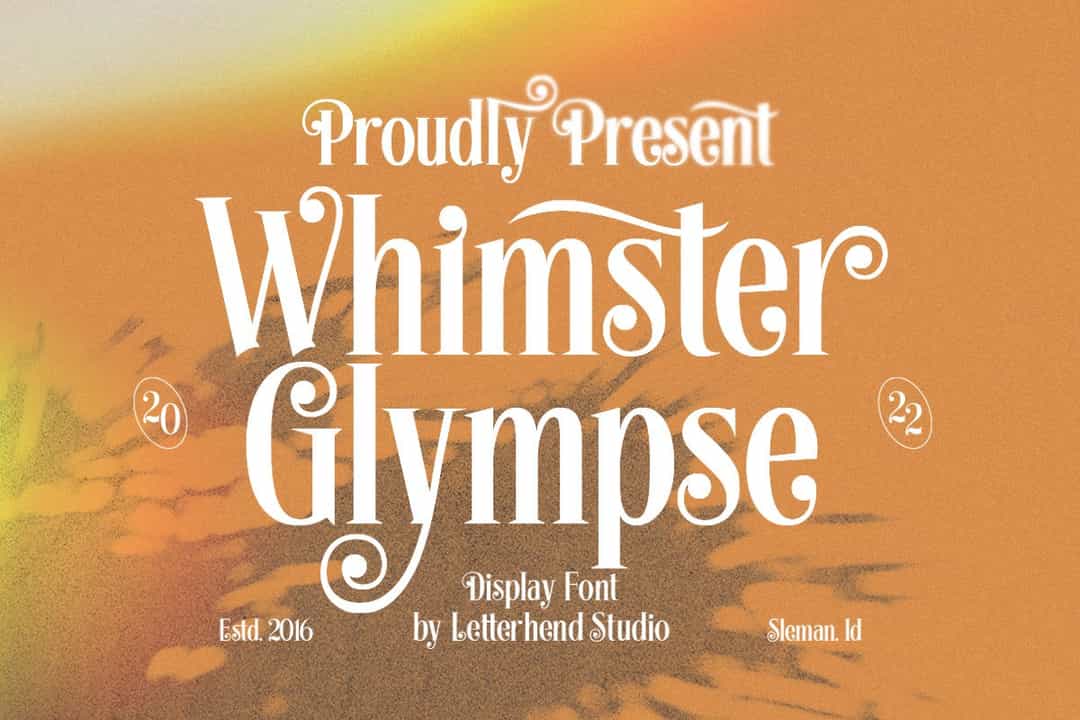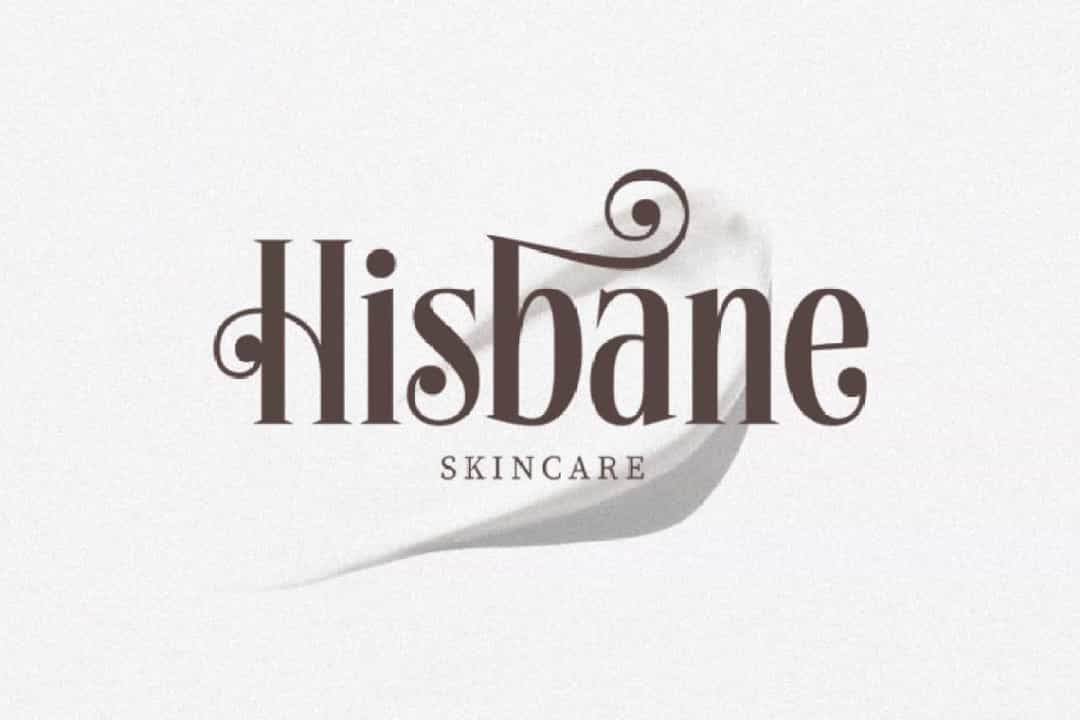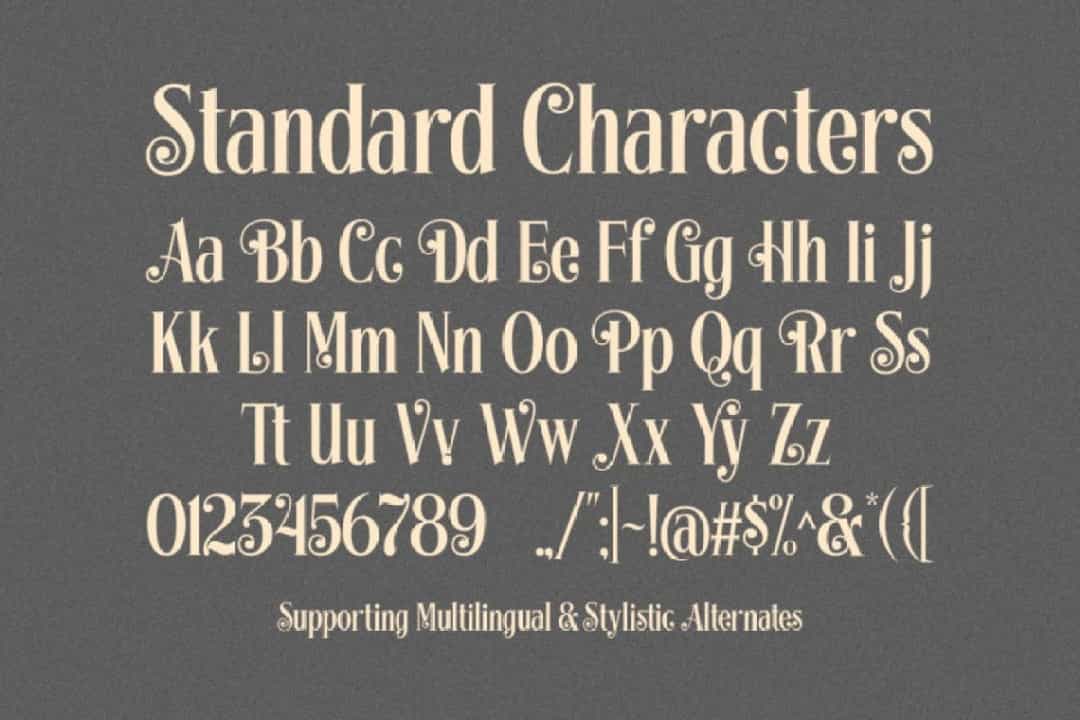
Discover Whimster Glympse Font, part of the Serif Display collection—a versatile and unique font perfect for adding a personal touch to your projects. Download it for free and enjoy crafting designs with style, from invitations to social media posts. This font is available exclusively for personal use, giving you the freedom to create without limits. Unlock your creativity with Whimster Glympse Font today!
Whimster Glimpseis an eye-catching display typeface with distinctive letterforms that makes it suitable for vintage or elegant design themes. Ideal for logos and formal formats like invitation labels and logos, magazines and books, greeting or wedding cards packaging fashion magazines make-up books stationery labels, making up books stationery labels etc.